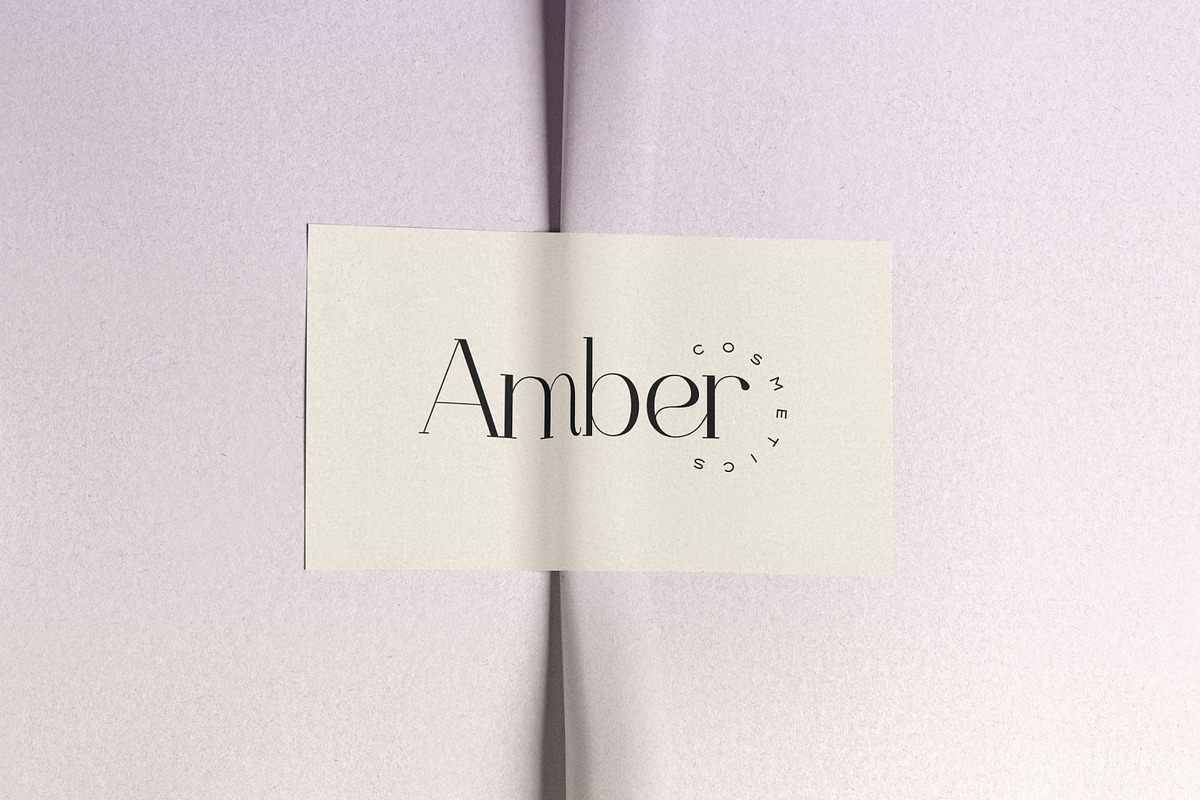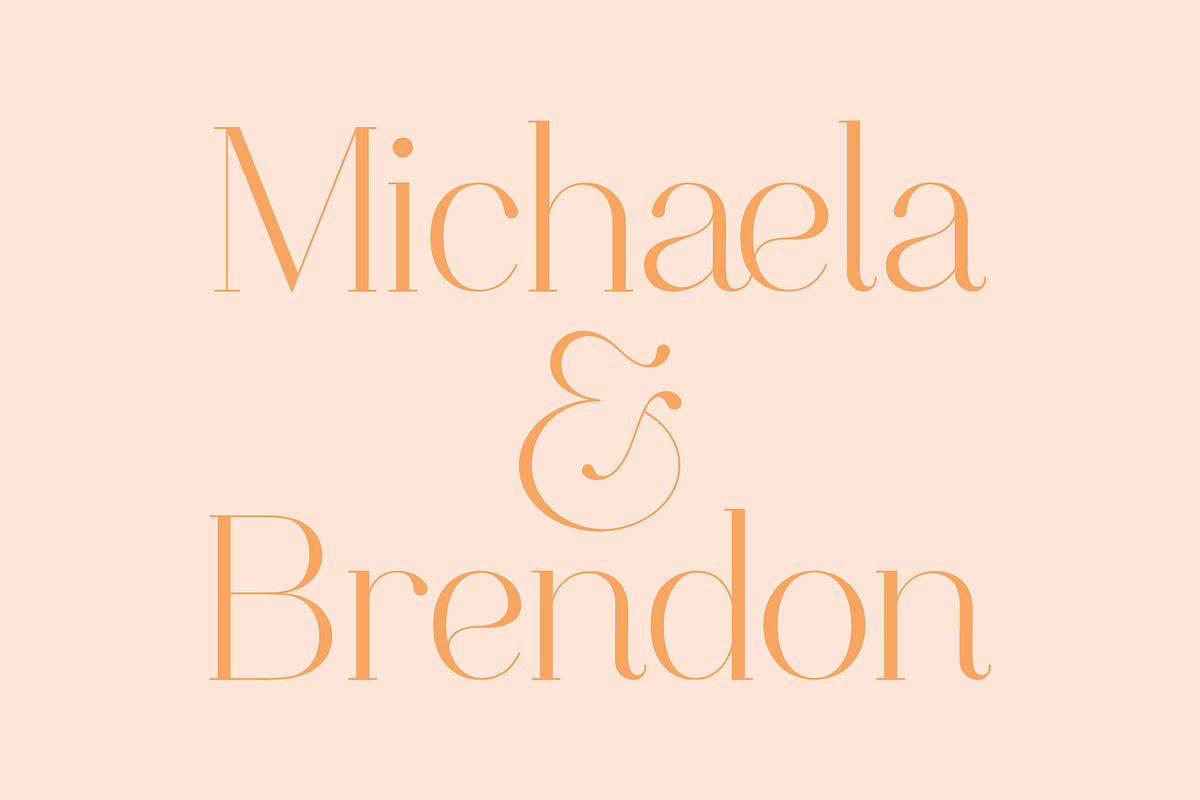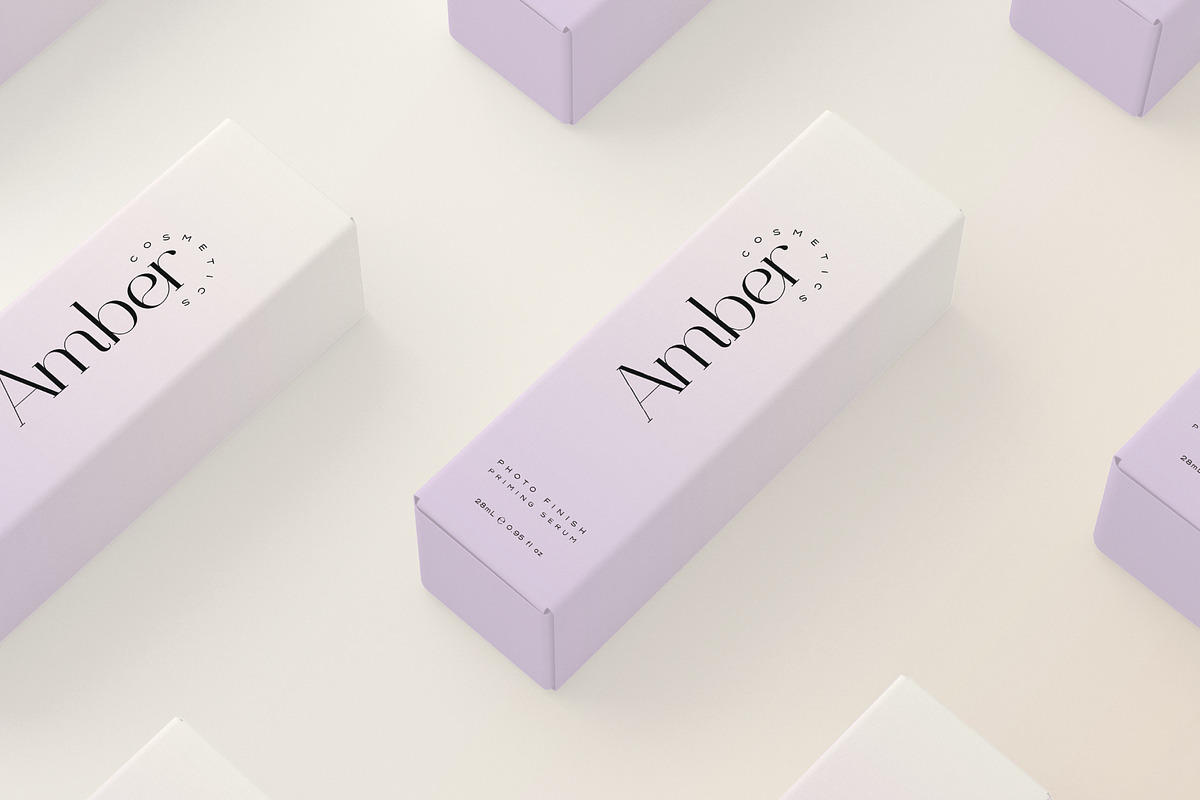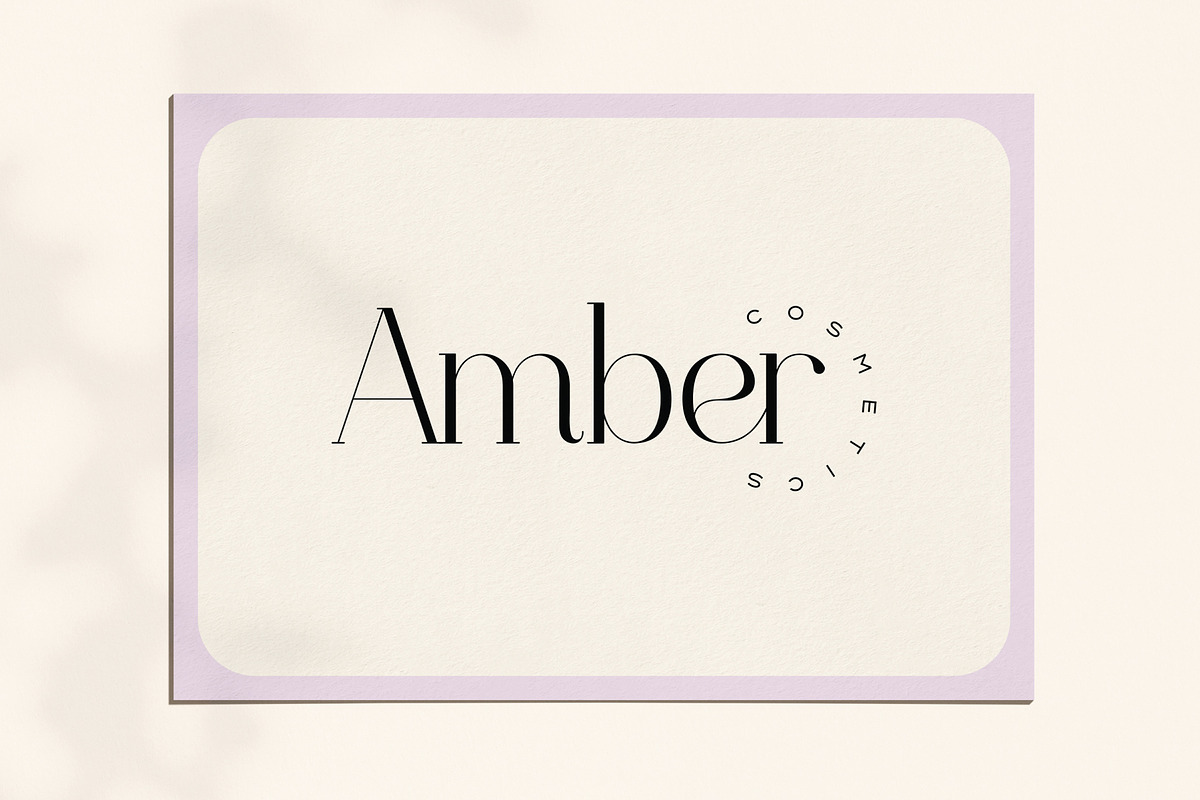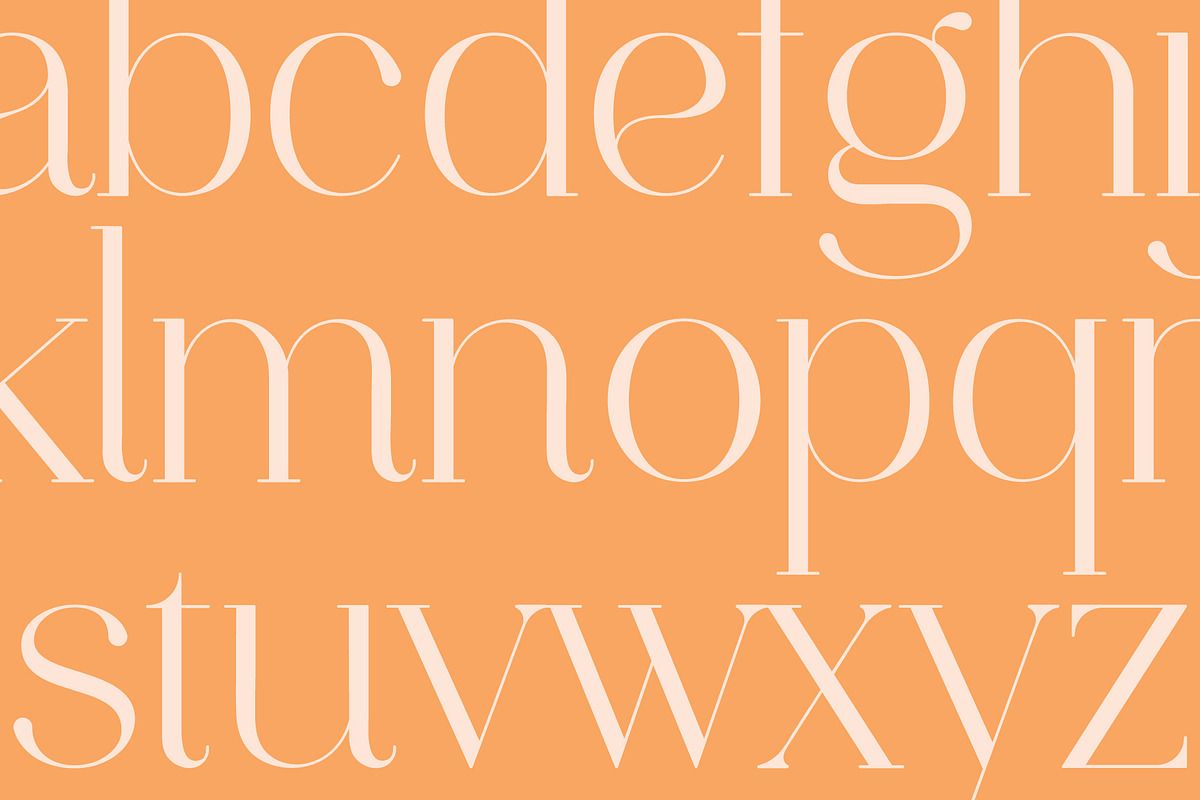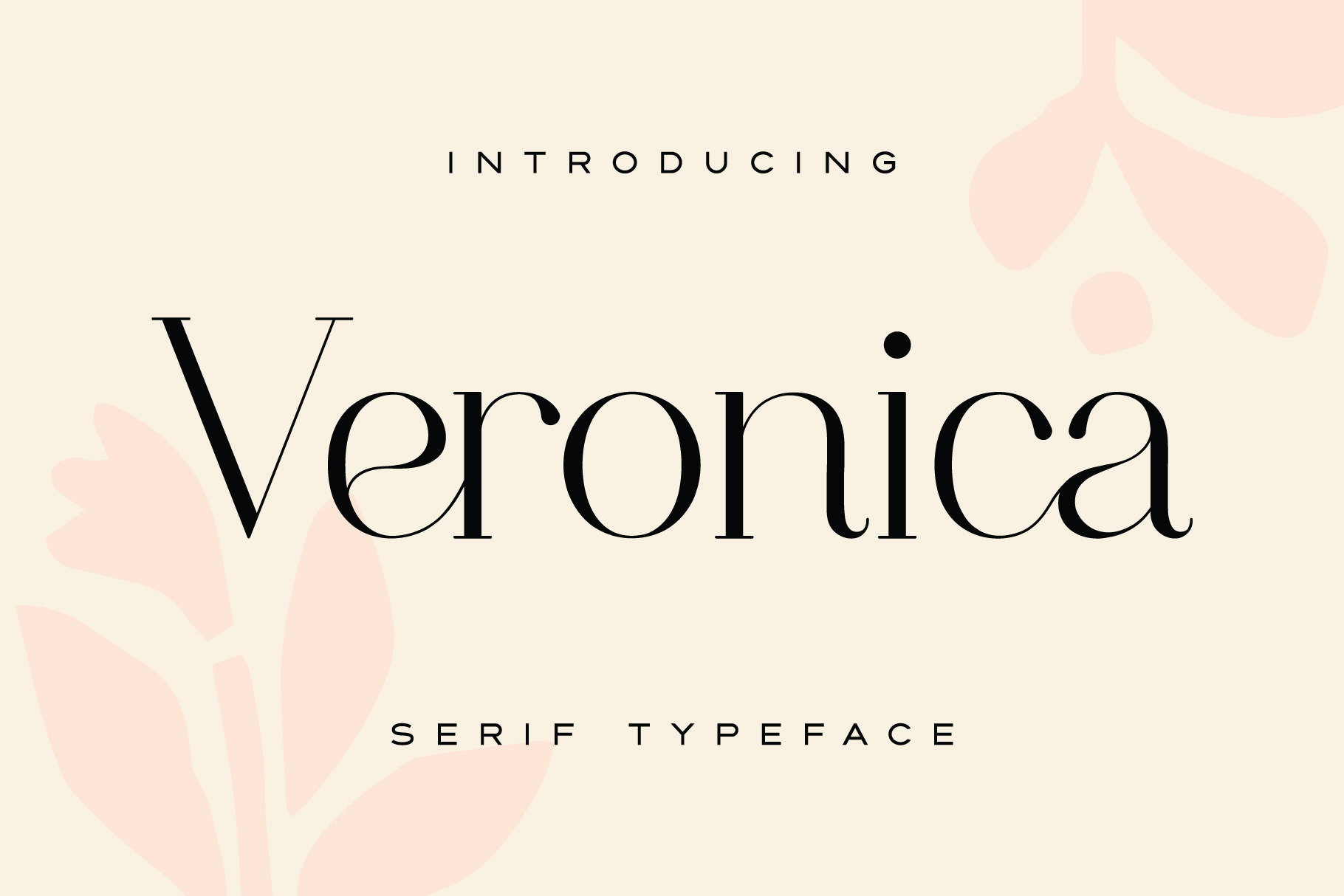
Veronica | Chic Serif Display Font
Introducing Veronica! A chic serif font that works perfectly for logos, branding, web headings and wedding stationery.
Veronica contains multilingual support with accented characters for international (Western European, Central European and South Eastern European) users.